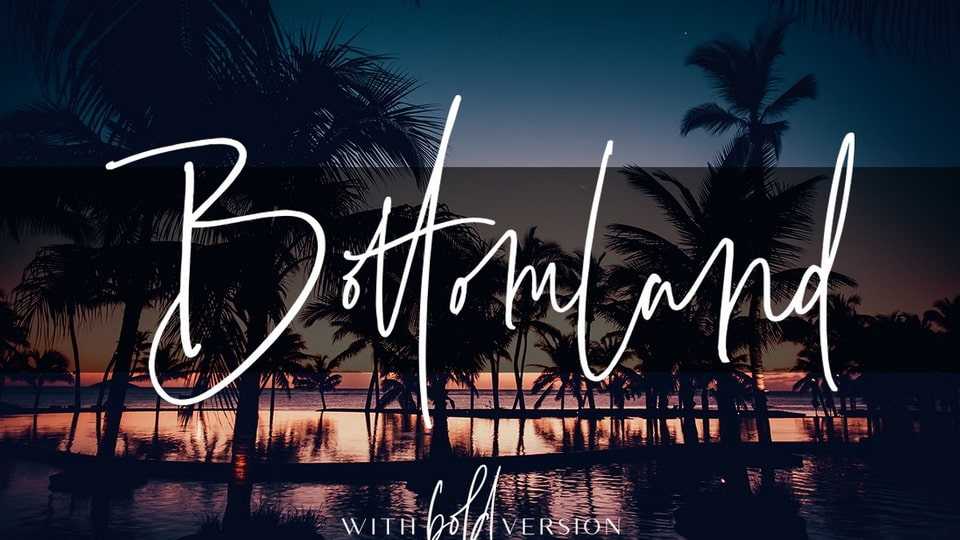
Download Bottomland font, a handwritten typeface that combines stylish letter shapes with contemporary twist. It’s the perfect fit for all luxury projects, such as elegant logos, printed quotes.